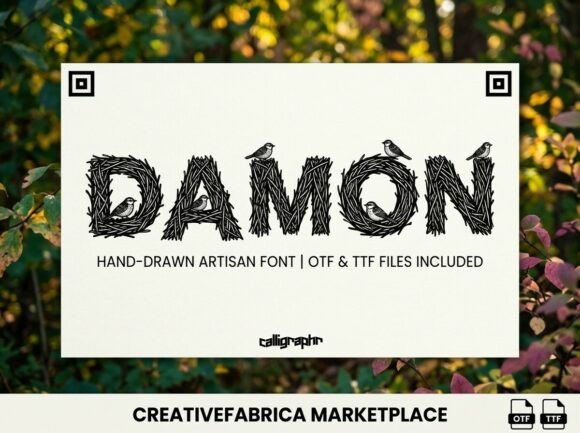
Introducing Damon Font: A Rustic Display Typeface for Nature-Inspired Designs
Are you a designer or crafter looking for a unique and captivating font to bring your nature-inspired projects to life? Look no further than Damon Font, a rustic display typeface that embodies the organic and nurturing spirit of the natural world. With its bold, hand-drawn letterforms and delicate bird silhouettes, Damon is the perfect choice for creating a natural sanctuary in your designs.
The Inspiration Behind Damon Font
Damon Font is a masterful creation that draws inspiration from the natural world. The font’s designer carefully crafted each letterform from rhythmic, hand-drawn twigs and branches, giving the font a unique and organic feel. The addition of delicate bird silhouettes perched within the “nest” of each character adds a touch of whimsy and playfulness, making Damon a truly one-of-a-kind typeface.
Key Features of Damon Font
So, what sets Damon Font apart from other typefaces? Here are some of its key features:
- Bold letterforms: Damon’s letterforms are bold and eye-catching, making them perfect for headlines, titles, and other display text.
- Hand-drawn twigs and branches: The font’s hand-drawn construction gives it a unique, organic feel that’s perfect for nature-inspired designs.
- Delicate bird silhouettes: The addition of bird silhouettes adds a touch of whimsy and playfulness to the font.
- Heavy illustrative weight: Damon’s bold, illustrative style makes it perfect for creating high-impact designs that grab attention.
Perfect for Nature-Inspired Designs
Damon Font is specifically designed for nature-inspired projects, making it the perfect choice for:
- Independent wildlife rescue branding: Damon’s bold, organic style makes it perfect for creating logos and branding materials for wildlife rescue organizations.
- Eco-resort identities: The font’s natural, earthy feel makes it a great fit for eco-resorts and environmentally-friendly businesses.
- Nature photography logos: Damon’s bold, illustrative style makes it perfect for nature photography logos that need to grab attention.
- Social media headers: The font’s bold, eye-catching style makes it perfect for creating high-impact social media headers that showcase your brand’s personality.
Why Choose Damon Font?
So, why should you choose Damon Font for your next project? Here are just a few reasons:
- Unique and eye-catching: Damon’s bold, illustrative style makes it a truly unique and eye-catching typeface that’s sure to grab attention.
- Perfect for nature-inspired designs: The font’s organic, natural feel makes it a perfect fit for nature-inspired projects.
- High-quality construction: Damon’s hand-drawn construction ensures that the font is of the highest quality and perfect for professional designs.
Get Creative with Damon Font
Ready to bring a touch of nature to your designs? With Damon Font, the possibilities are endless. Here are a few ideas to get you started:
- Create a logo for a wildlife rescue organization: Use Damon’s bold, illustrative style to create a logo that’s both eye-catching and meaningful.
- Design a website for an eco-resort: Use Damon’s natural, earthy feel to create a website that showcases the beauty of nature.
- Make a statement with social media headers: Use Damon’s bold, eye-catching style to create social media headers that grab attention and showcase your brand’s personality.